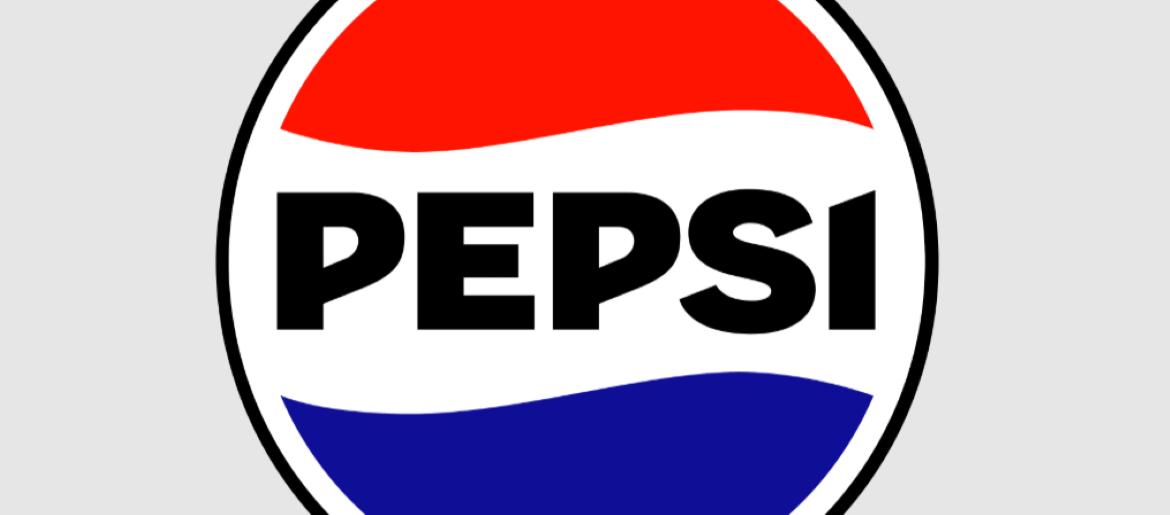
Pepsi Font
Hedra Bold for “P & E” (Alternative)
Copihue Black for “S” (Alternative)
The Pepsi Font is a cornerstone of the brand’s visual identity, projecting boldness, modernity, and instant recognition. The current logo uses a custom typeface designed for clarity, balance, and approachability. Its rounded letterforms and proportional spacing give the brand a friendly yet contemporary vibe, ensuring the logo stands out across packaging, advertising, and digital platforms worldwide.
Pepsi Font (Previous Logo)
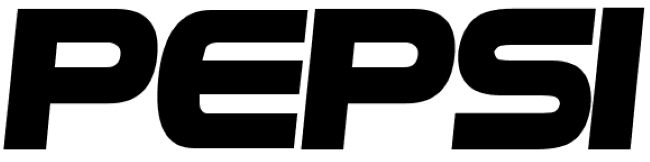
Pepsi’s use of a clean, strong font reinforces its brand message of energy, refreshment, and reliability. From the classic cola to modern product lines, the font has been integral in creating a consistent and recognizable look that consumers associate with fun, innovation, and a youthful spirit.
About Pepsi
Pepsi is one of the world’s leading beverage companies, producing soft drinks, snacks, and other consumer products. Known for its iconic cola, innovative marketing, and vibrant brand personality, Pepsi has built a global reputation for refreshment, energy, and boldness. The Pepsi Font, in both its current and previous forms, visually communicates these brand values to audiences everywhere.